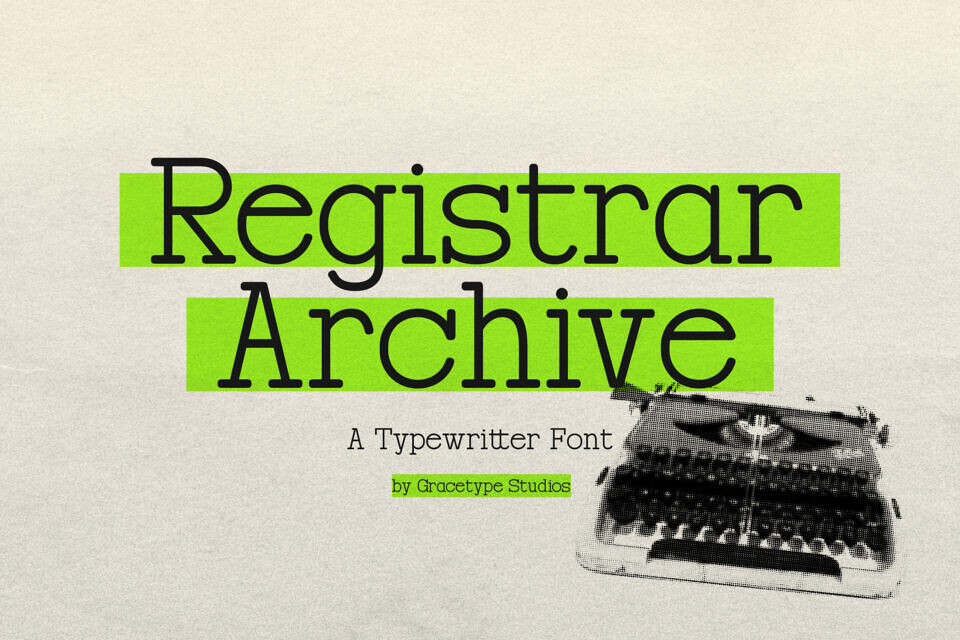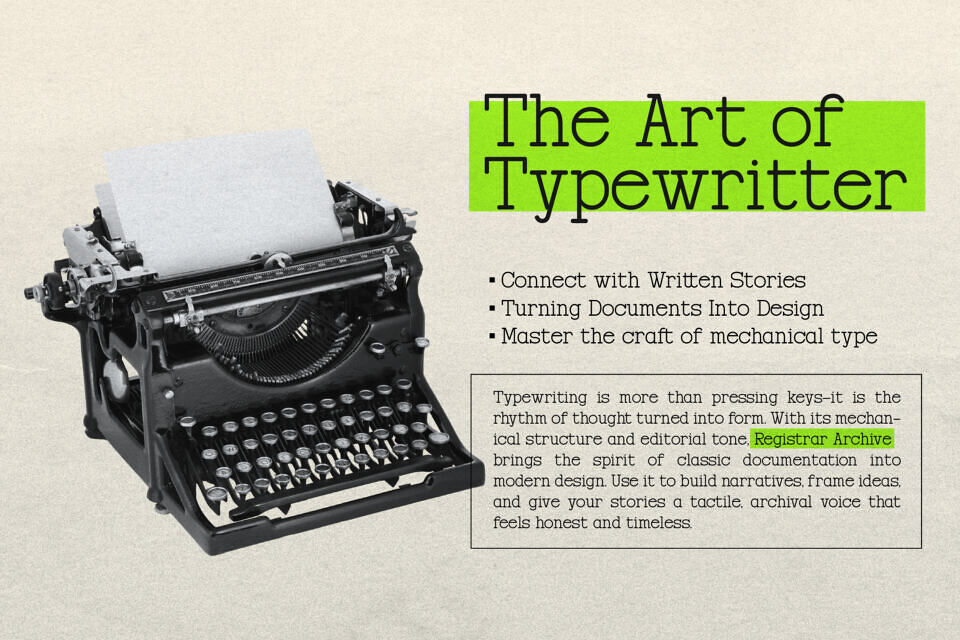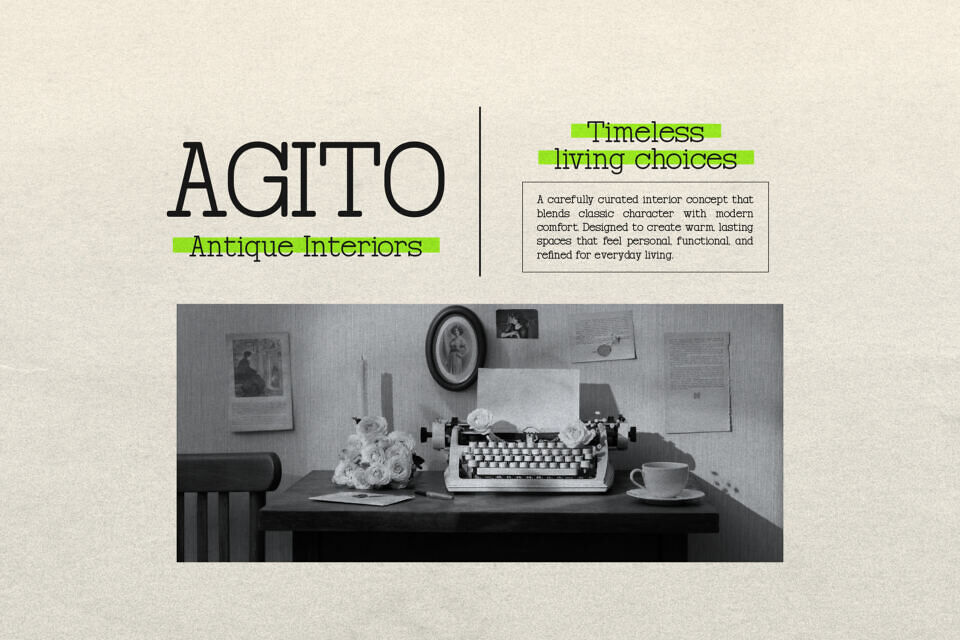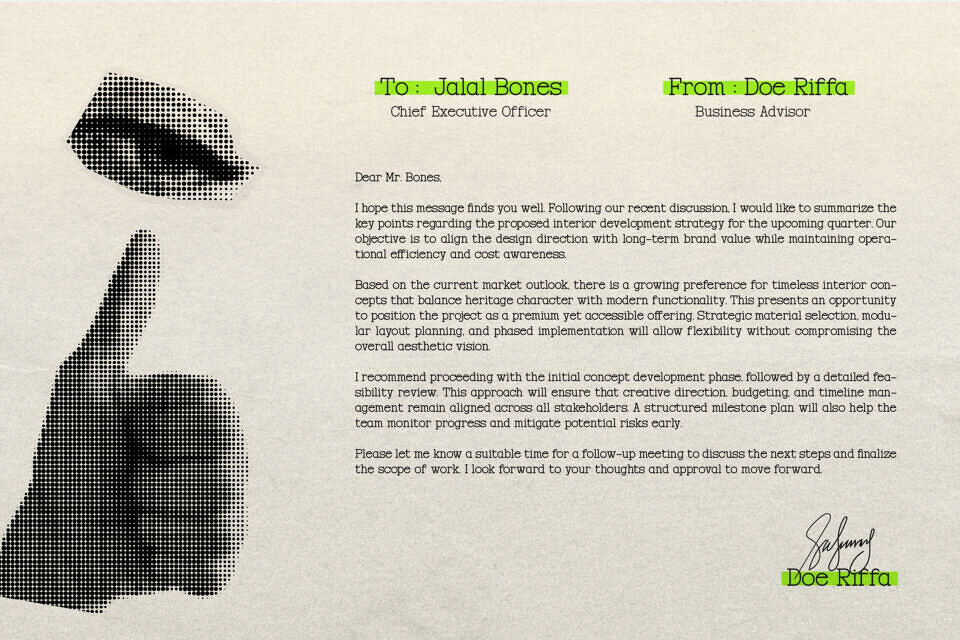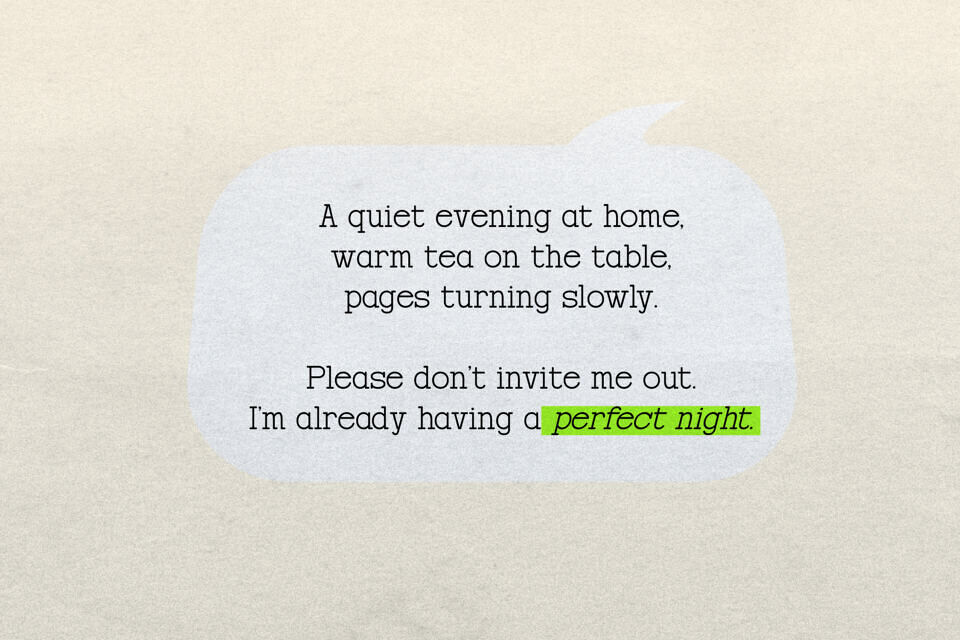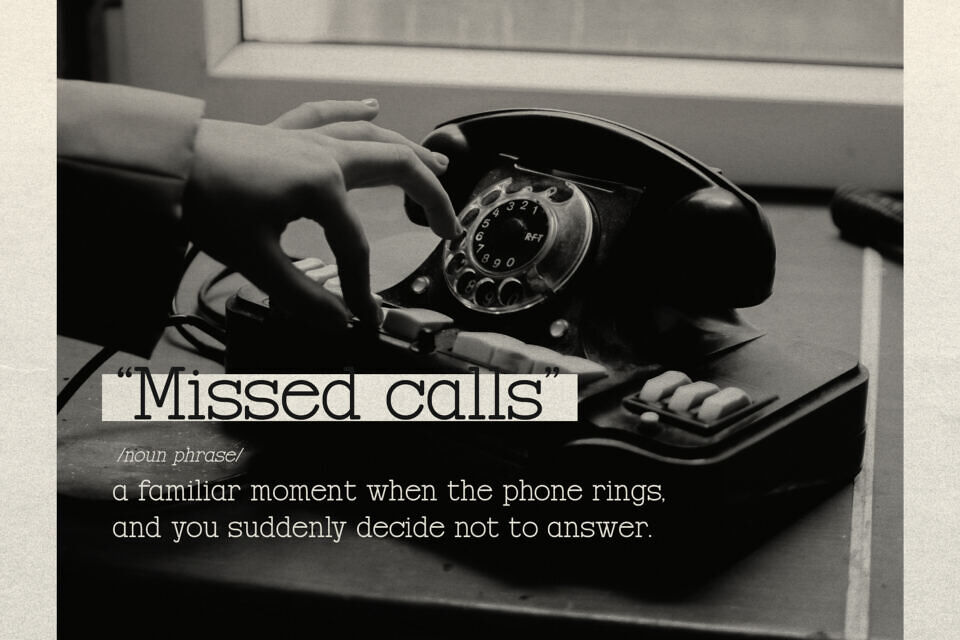
Registrar Archive is a clean, authentic, and highly versatile slab-serif typeface that captures the timeless aesthetic of a classic mechanical typewriter. Defined by its fixed-width character and deliberate, monolinear construction, this font bridges the gap between vintage documentation and modern editorial design.
Its stark, mechanical rhythm and unpolished edges make it an exceptional choice for cinematic credits, investigative journalism-style layouts, historical branding, and minimalist industrial designs. Registrar Archive delivers a grounded, “documentary-cool” aesthetic that provides an immediate sense of record-keeping authority and nostalgic charm to any creative project.